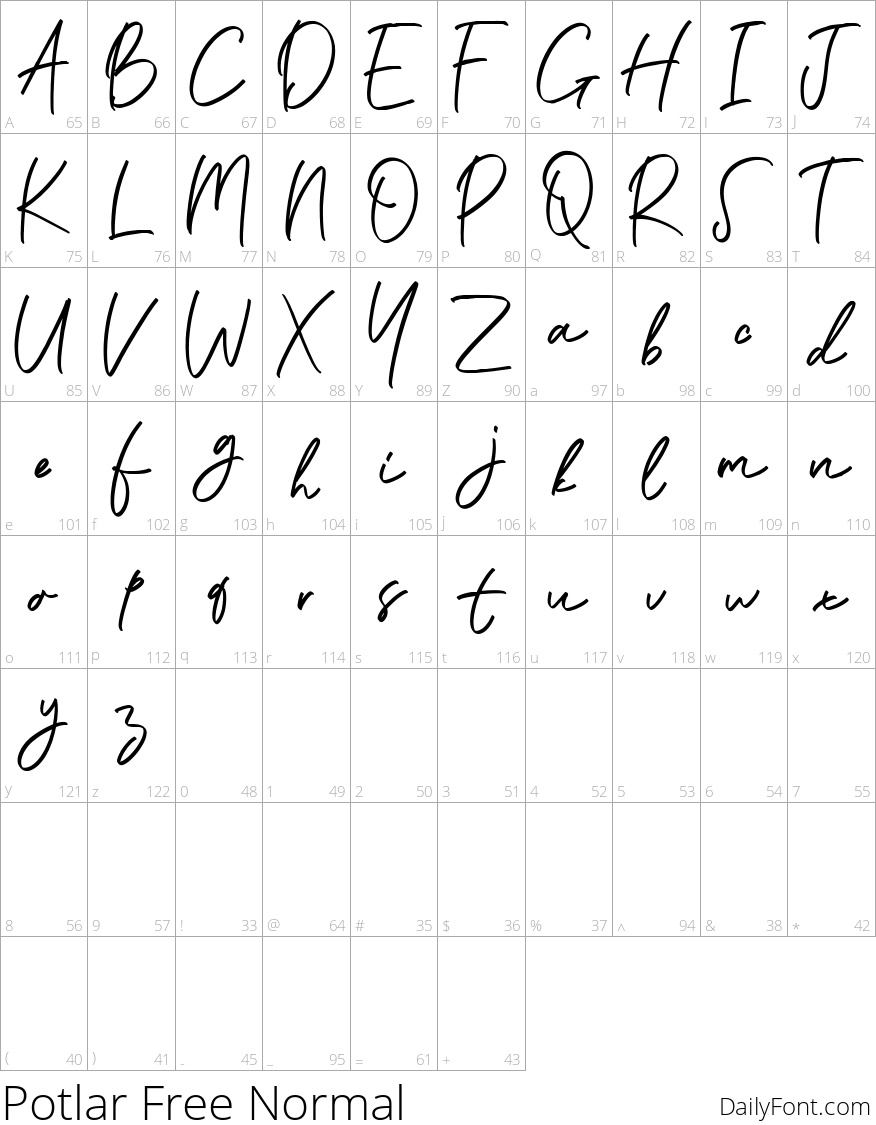
Potlar
Looking for a playful and expressive handwritten font that adds a touch of whimsy to your designs? You'll love a font like Potlar! This charming script font is perfect for projects that require a dash of creativity, imagination, and personality.
With its flowing curves and gentle imperfections, Potlar brings a sense of hand-crafted authenticity to your work. Whether you're creating a children's book, a blog post, or a social media campaign, this font's versatility and expressiveness will help bring your ideas to life in a way that feels both personal and professional.
One of the best things about Potlar is its ability to add visual interest to even the most straightforward text. The subtle flair of each letter makes it perfect for titles, headlines, and other emphasis areas, while the font's friendly tone keeps it suitable for everyday use.
Whether you're a designer looking for a new font to add some excitement to your portfolio, or an individual seeking a unique voice for your personal brand, Potlar is a great choice. Its endless variations and possibilities make it perfect for experimenting with different looks and feels – so go ahead, get creative, and have fun with this beautiful font!